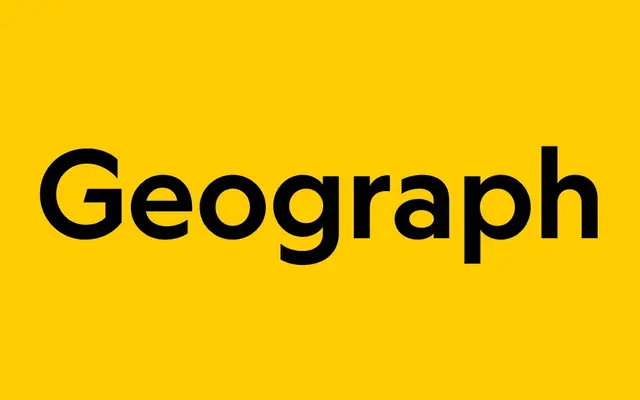
Geograph
Klim Type Foundry · Kris Sowersby · 2019
A geometric sans built for National Geographic, blending Futura idealism with Super Grotesk pragmatism and a deep set of alternates.
A geometric sans by Kris Sowersby originally drawn for National Geographic, sitting between the idealism of Futura and the pragmatism of Super Grotesk. Twelve styles run from Thin to Black with matching italics and a variable-weight axis, and stylistic sets swap in Futura alternates (single-storey a, e, g) or blunted A, M, N, V, W. A workable choice when a brand wants the geometric look without locking itself to one historical reference.
Klim classifies it as Modern: Lineal/Geometric; originally designed for National Geographic, drawing on the idealism of Futura and the pragmatism of Super Grotesk, with stylistic sets that toggle between Futura alternates and blunt alternates.